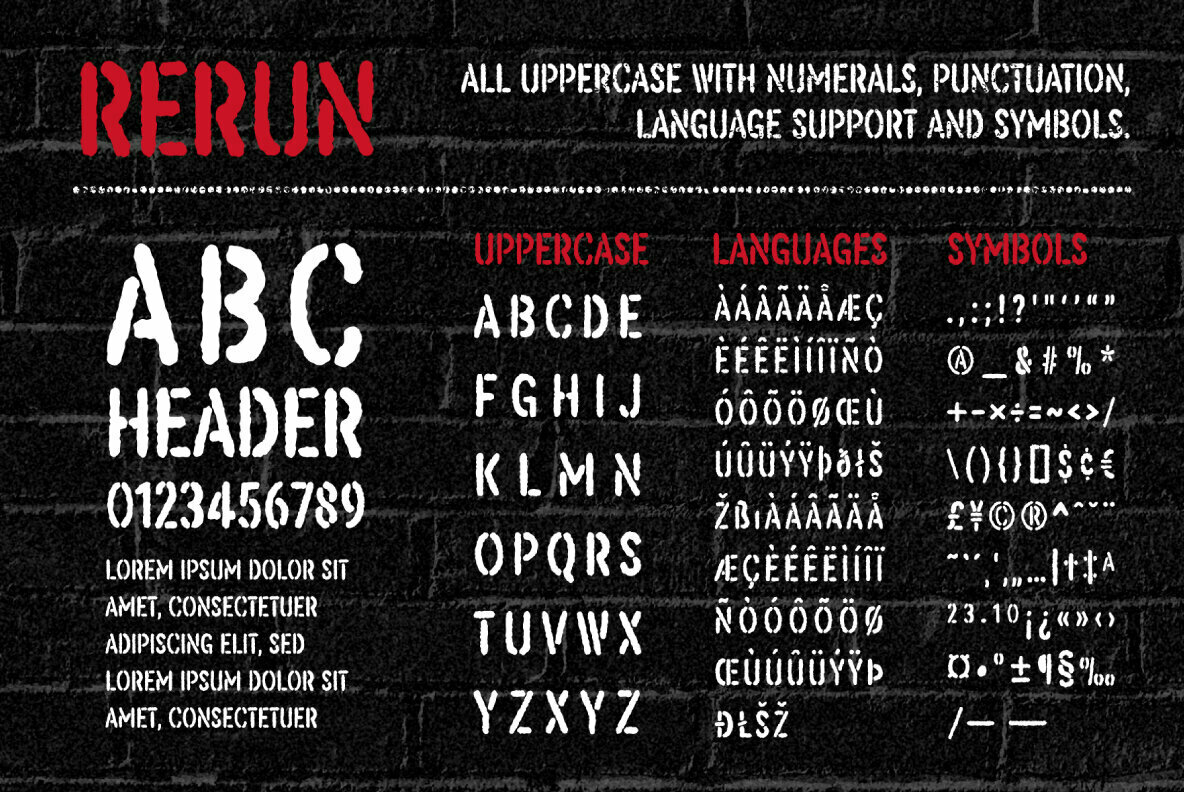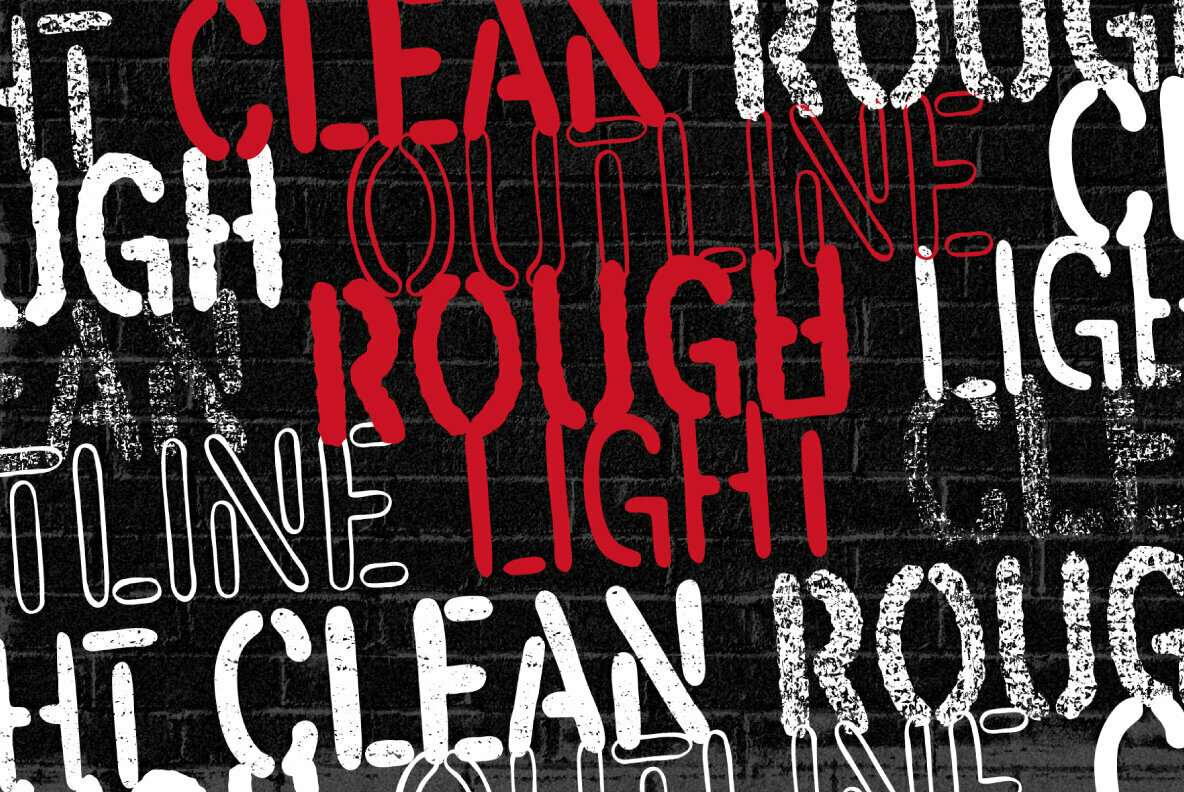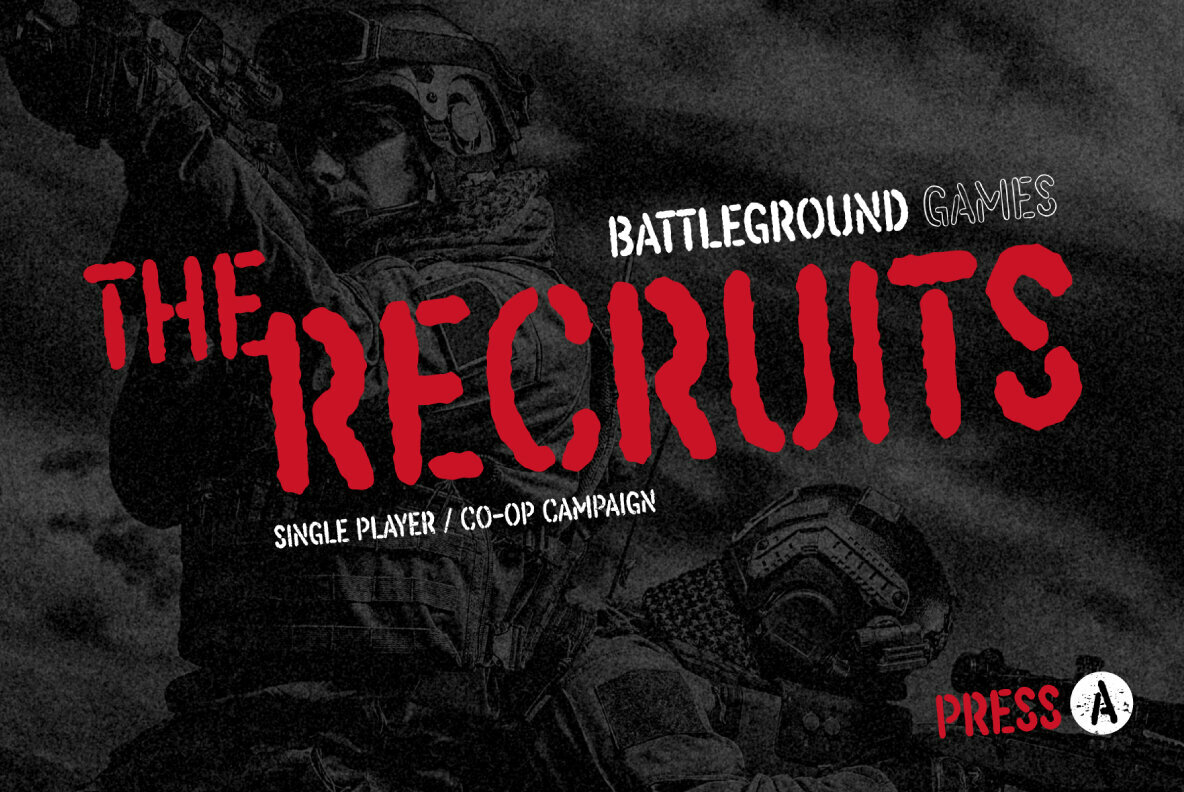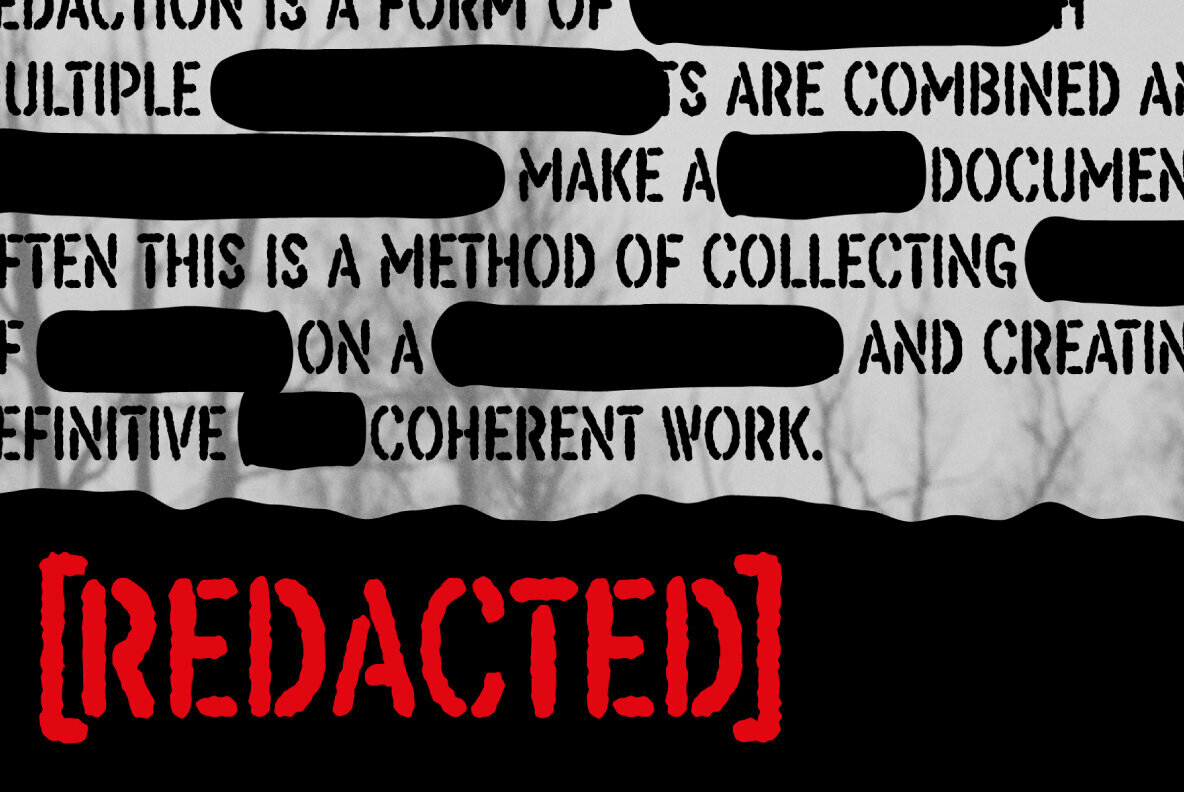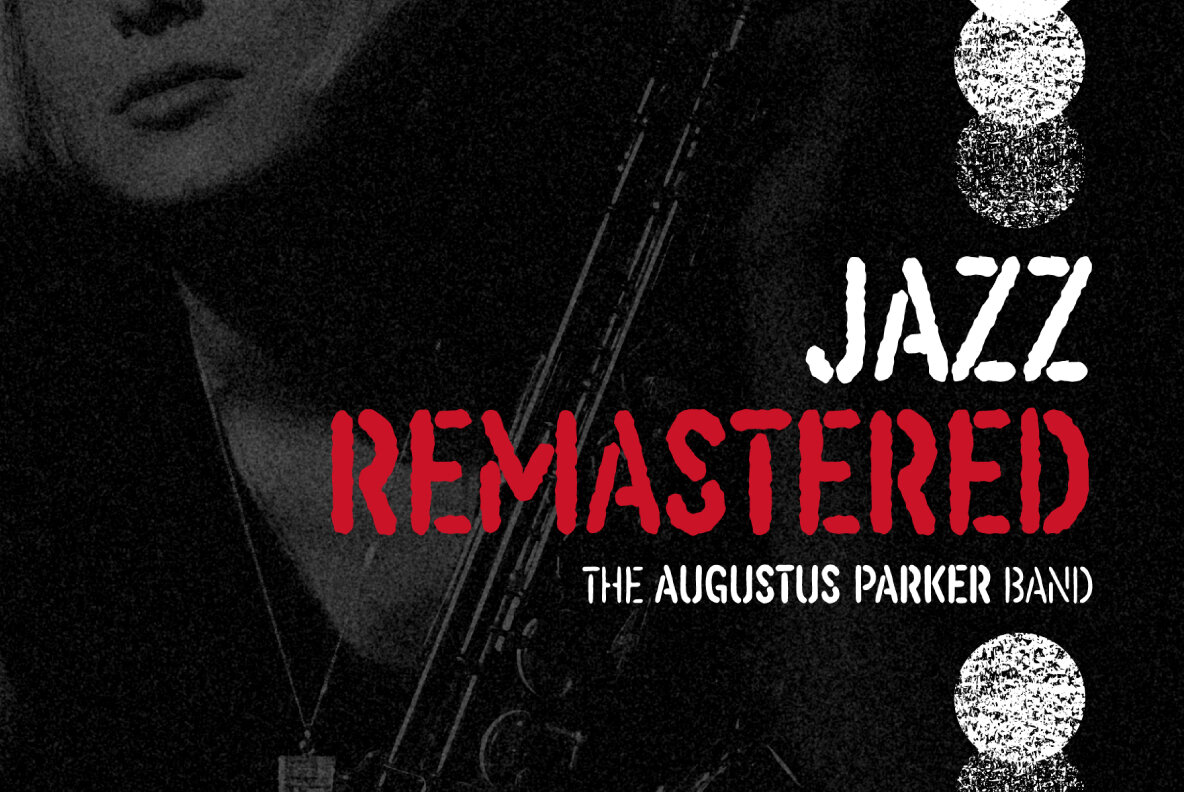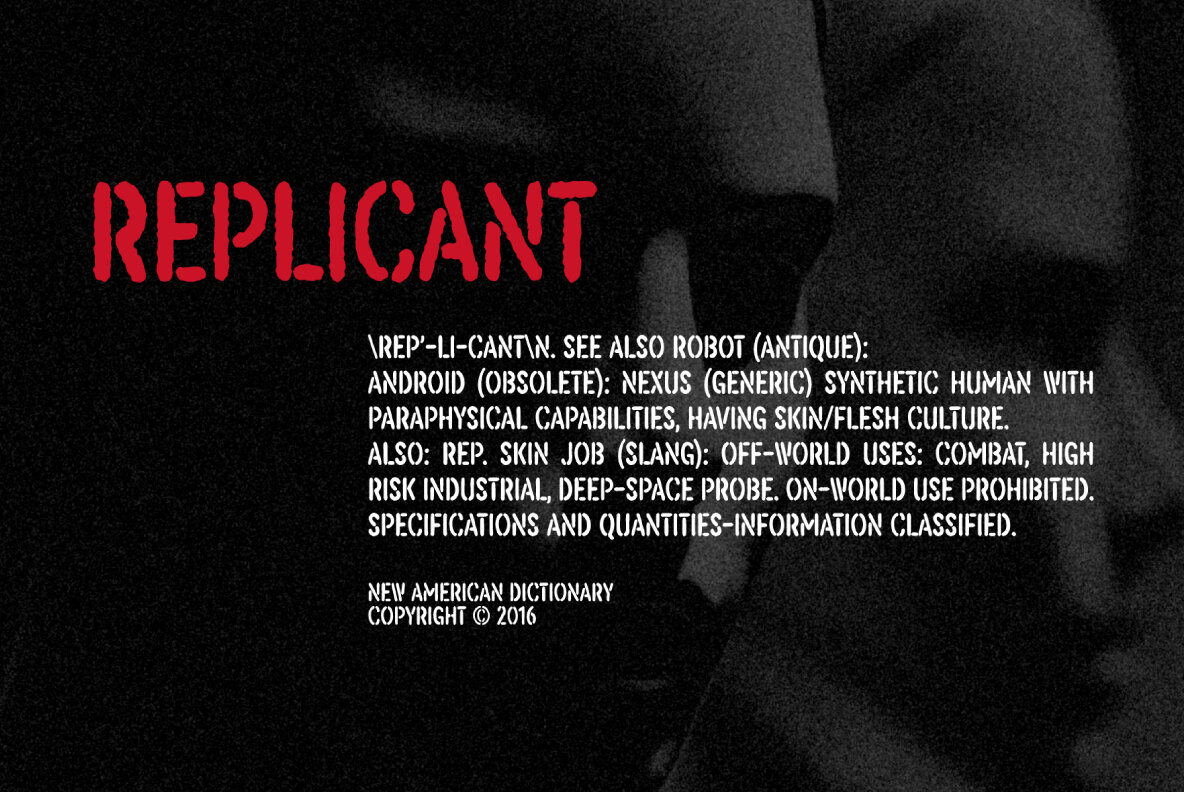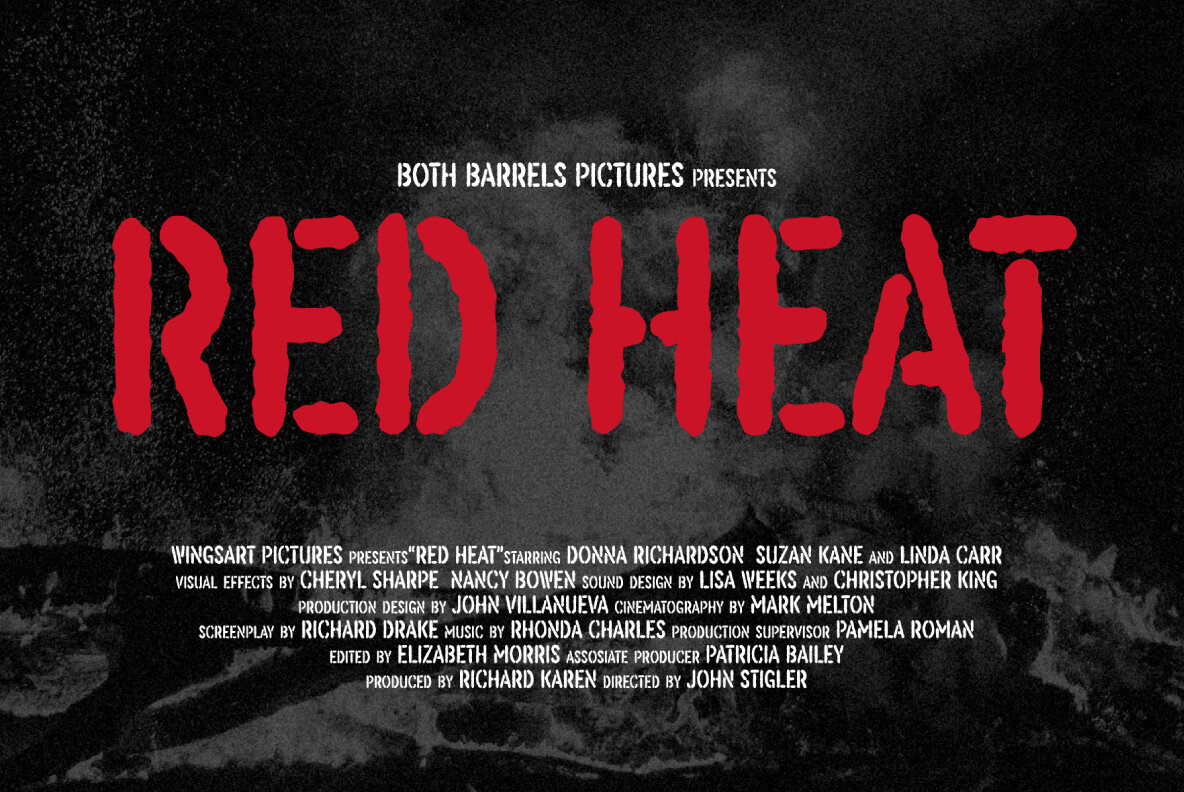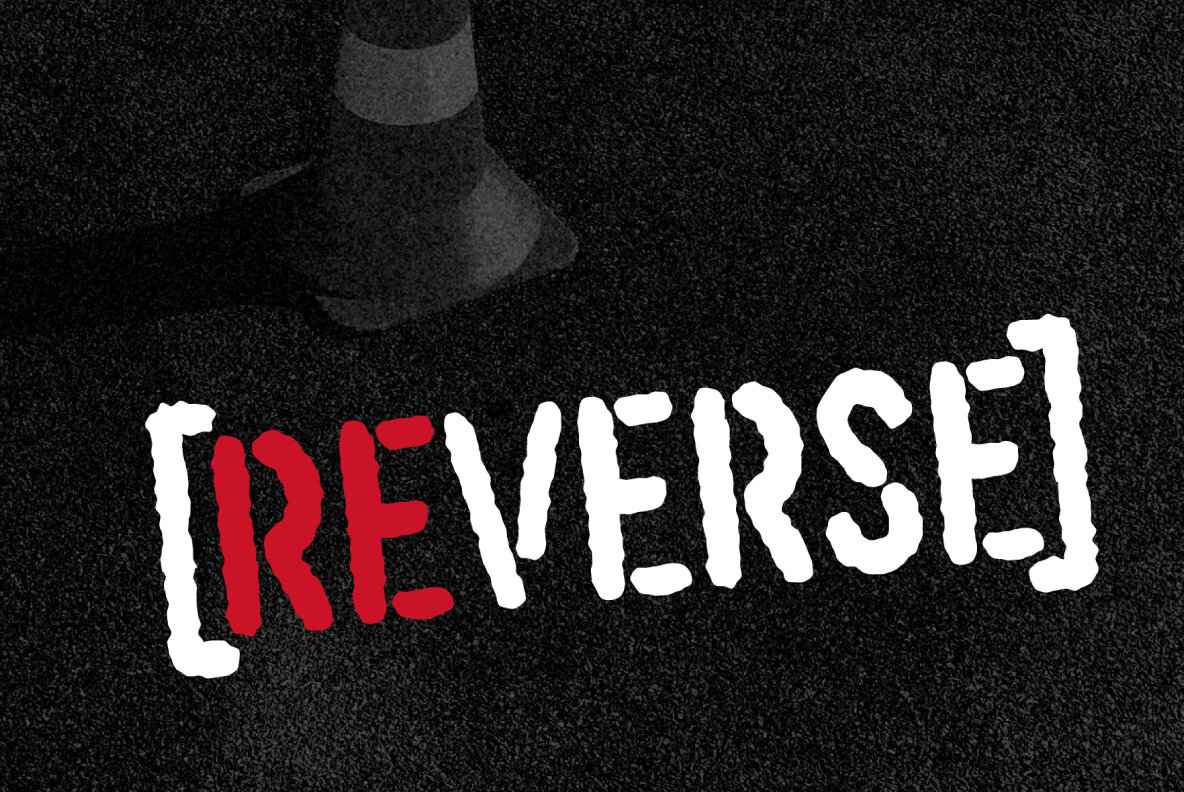
ReRun Font
ReRun Light
ReRun Clean
ReRun Outline
ReRun Rough
A hand-drawn stencil font for video games and film titles with a grungy urban design.
This all-caps display font offers a simple way to replicate the look of hand-drawn or sprayed on stencil lettering. An industrial style that's used for it's quick real-world applications found on everything from roadworks, storage containers and military vehicles; with an urban visual language uniquely suited to video games, film titles and album covers. See above for more usage ideas.
This font family includes uppercase-only characters, plus all punctuation, numerals and language support.
Based near Bristol, UK, Christopher King is the designer behind Wingsart Studio, a creative practice specializing in hand-drawn lettering and bespoke typography for film and television. Acting as both a working portfolio and an independent font foundry, Wingsart Studio showcases King’s deep appreciation for mi...